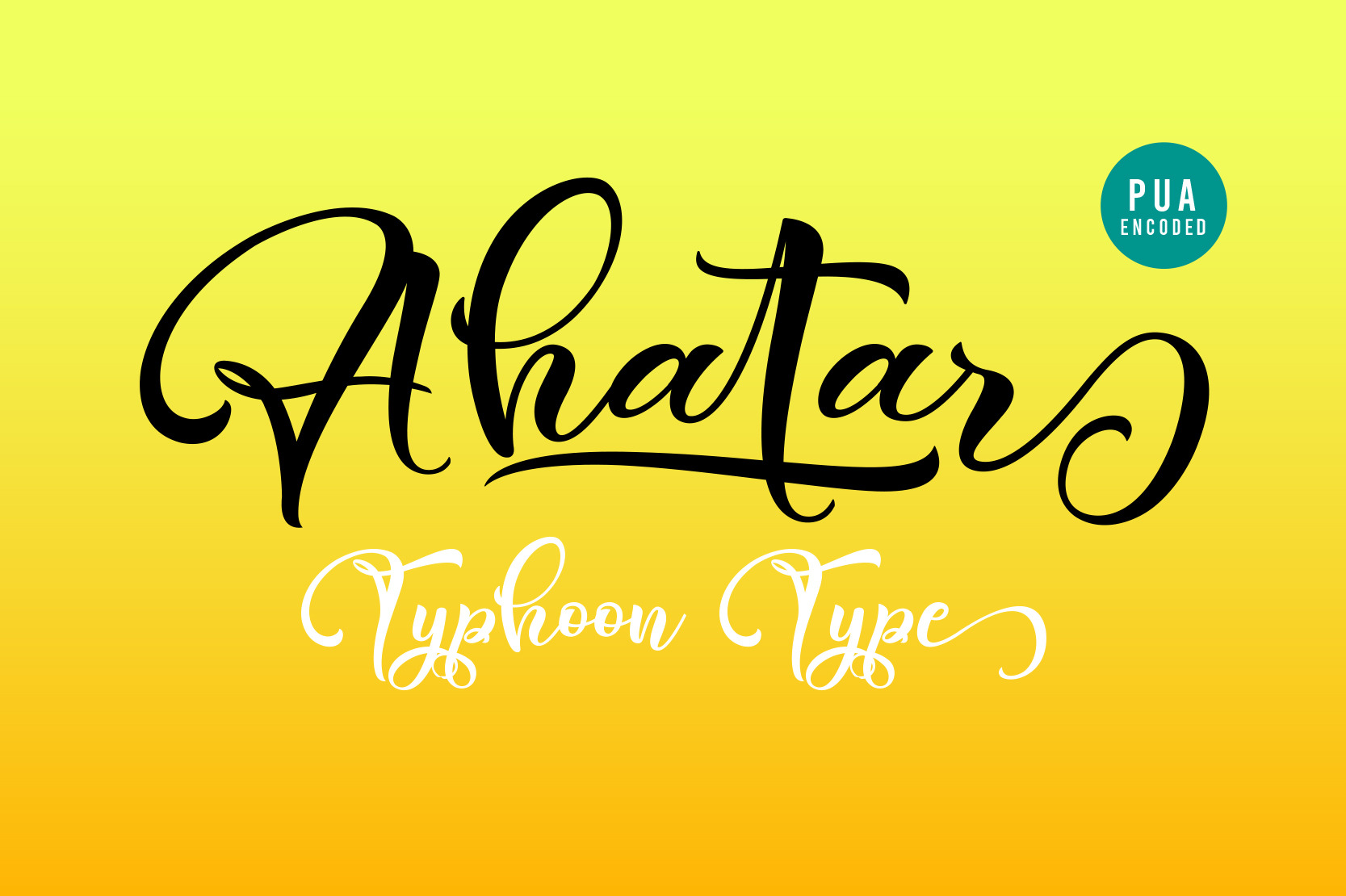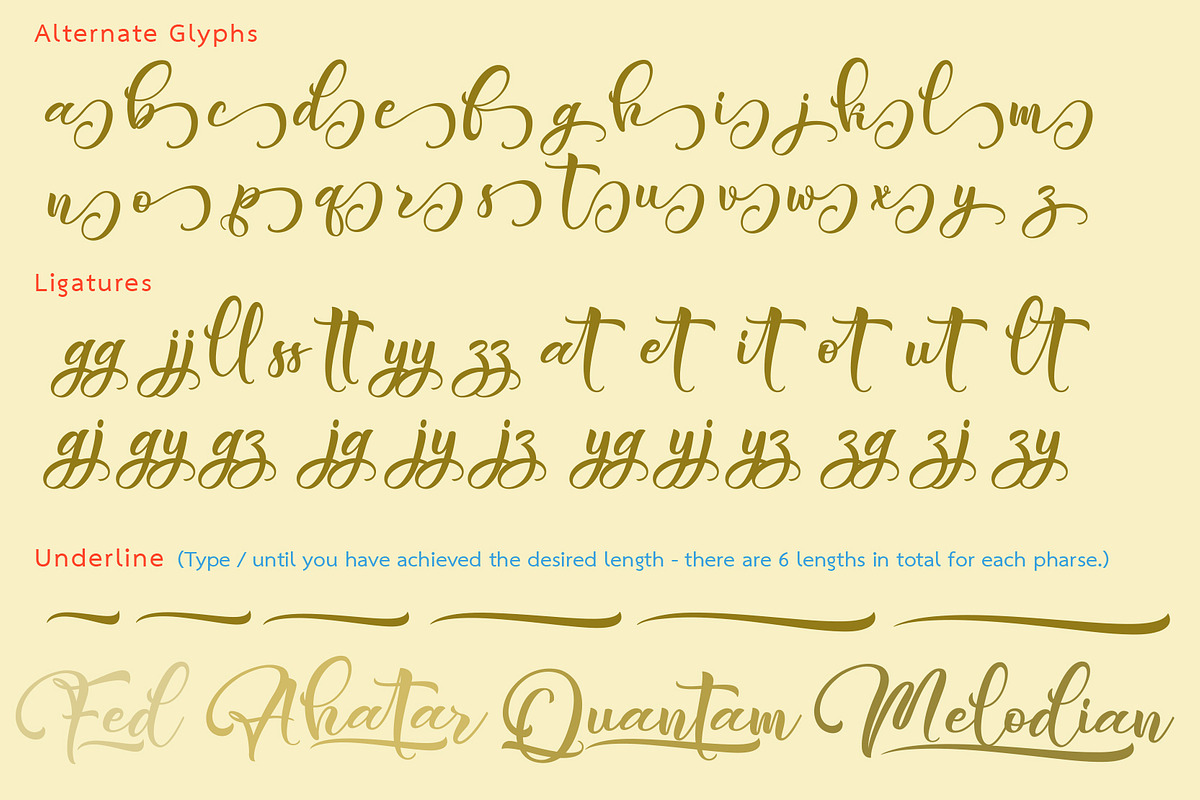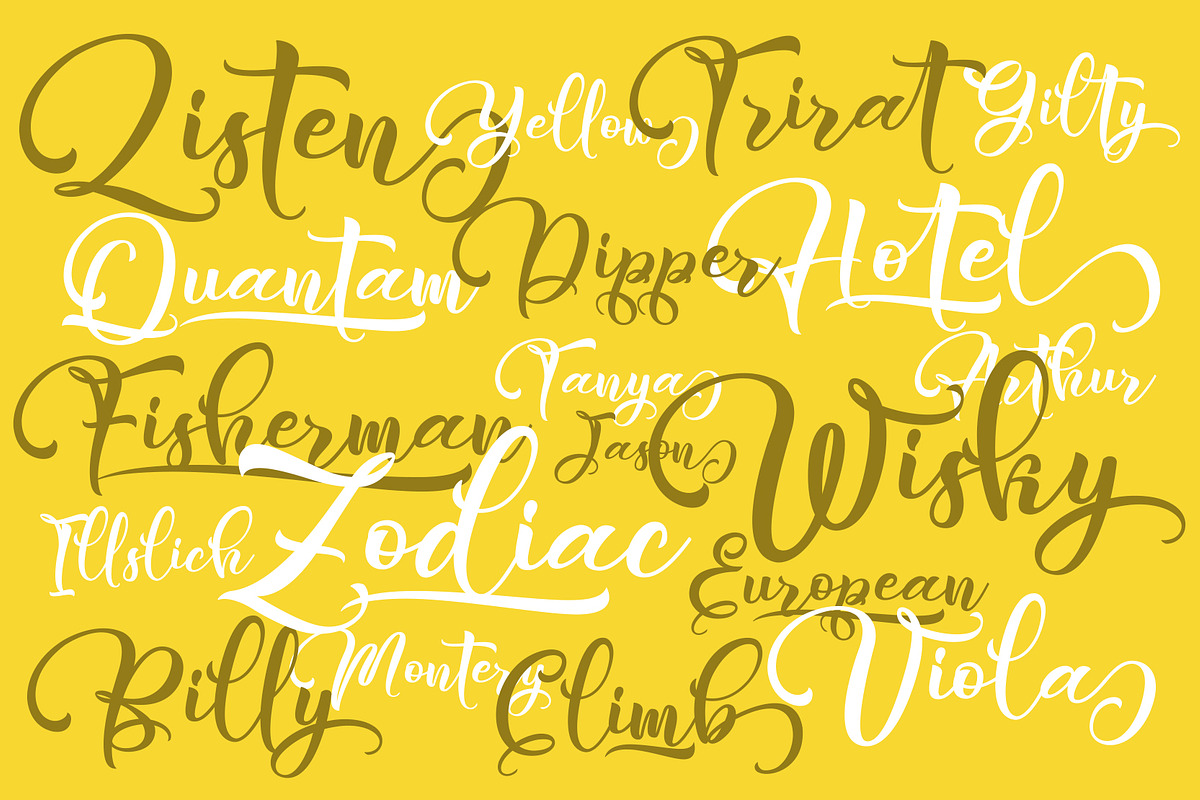
Ahatar Font
Ahatar This Font perfect for logos, name tag, advertising, product packaging, clothing, social media & greeting cards.
If you have any question, don't hesitate to contact me by email at typhoontype@gmail.com Thank you so much.(including Thai Glyphs) is a cute and casual handwritten font with an incredibly friendly feel. It’s perfect for logos, branding, social media posts, greeting cards, and much more! This font is PUA encoded, which means you can access all of the glyphs and swashes with ease!